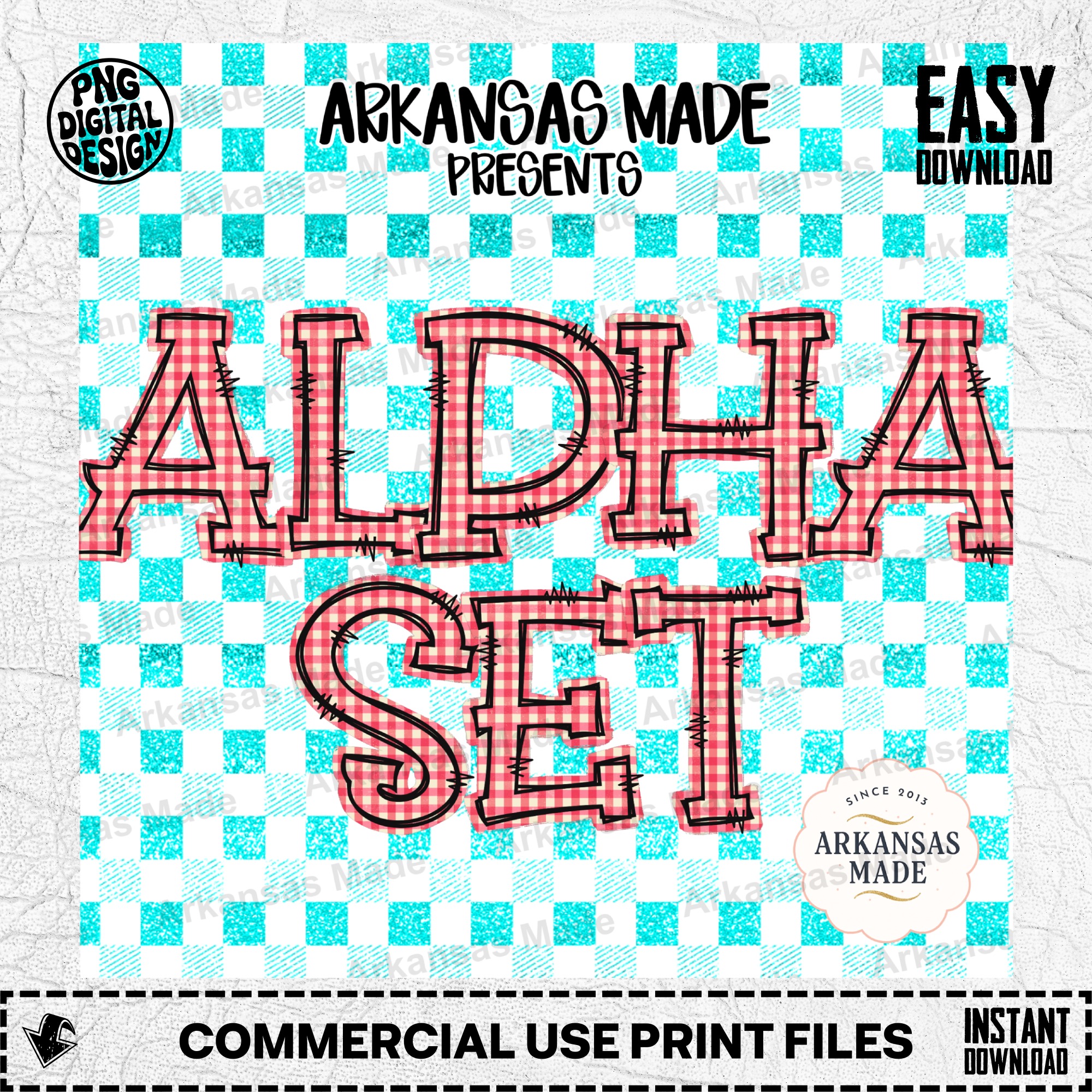
Red Gingham Alphabet Digital Download PNG, Farmhouse Plaid Font Letters, Stitched Outline Alpha Set, Rustic Craft Design Resource, Instant
Elevate your creations with our Red Gingham Alphabet Digital Download PNG! This charming farmhouse plaid alpha set features a unique stitched outline for all your craft needs. Infuse rustic charm into your personalized gifts, apparel, and decor projects. Perfect for crafters, DIY enthusiasts, and small businesses looking to add a touch of country chic to their designs. Create unique t-shirts, tumblers, party decorations, and more for birthdays, showers, or everyday charm.